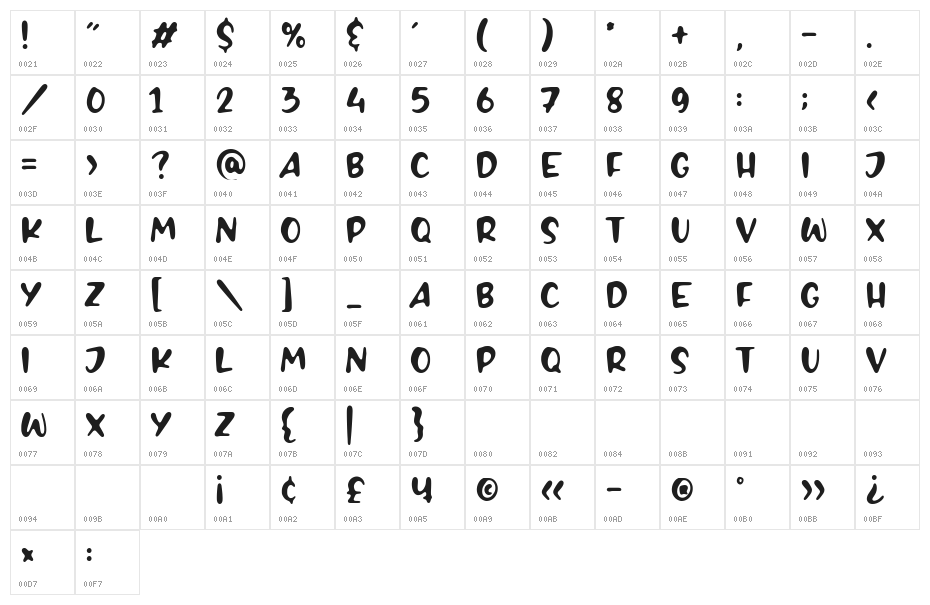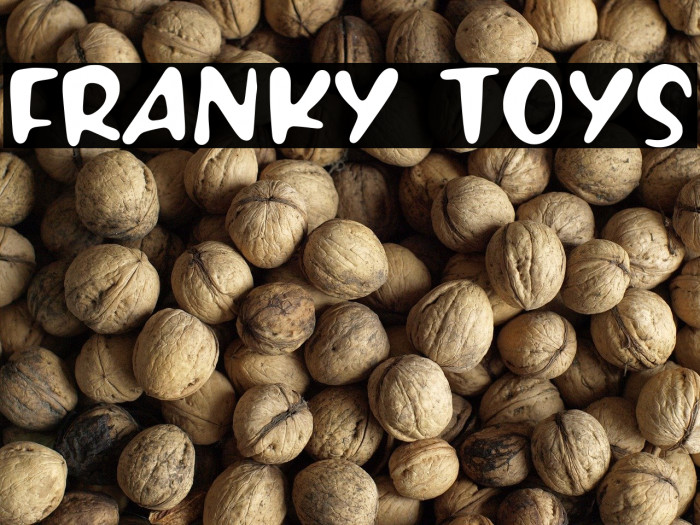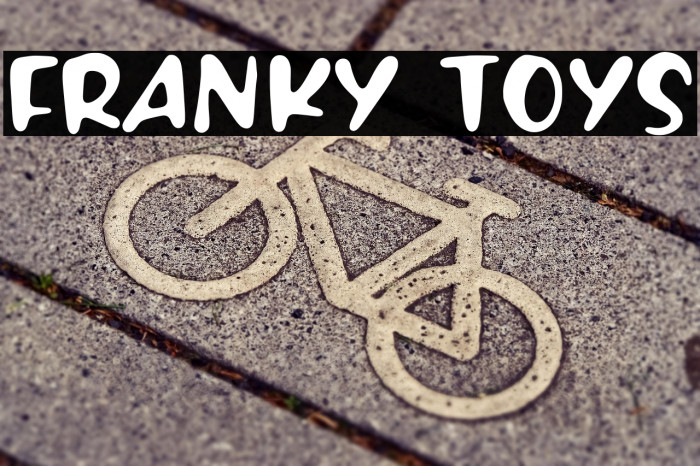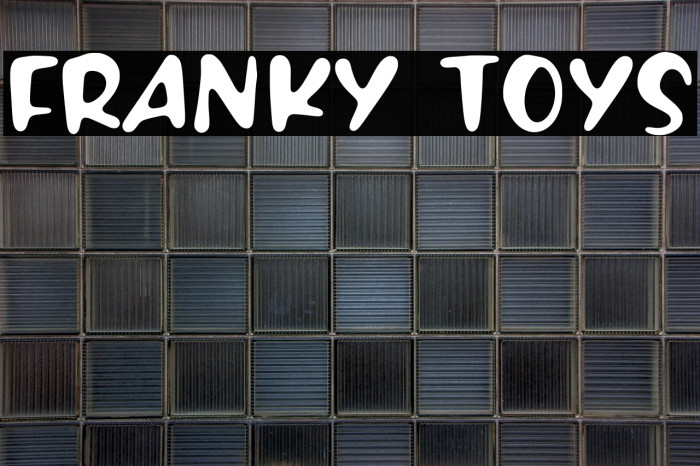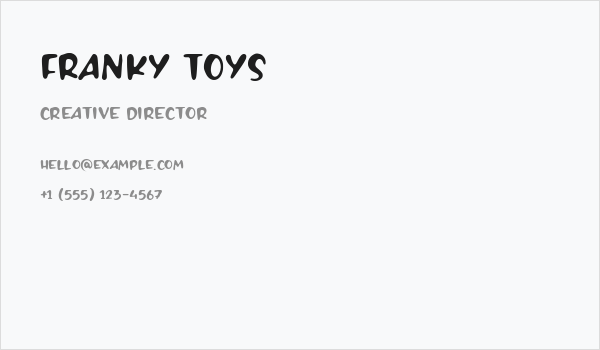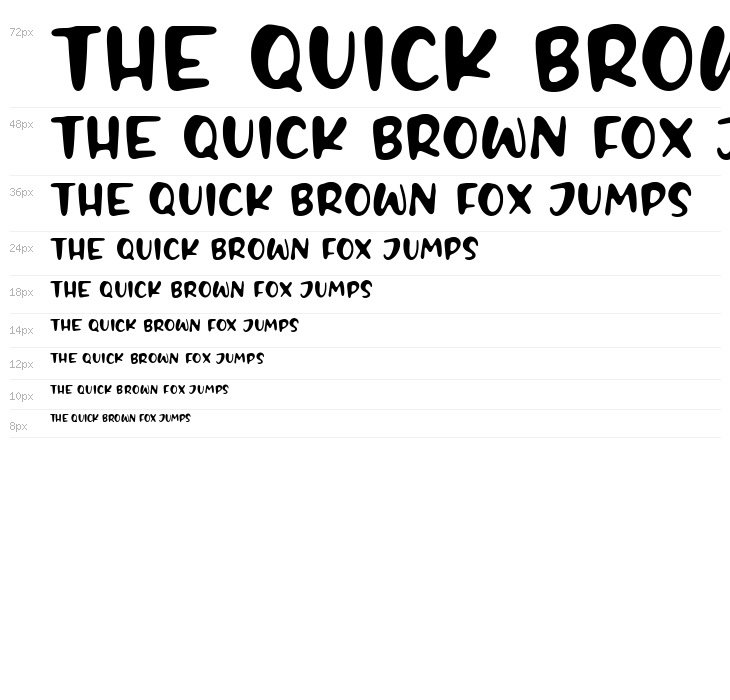
FRANKY TOYS Font
FRANKY TOYS Description
This playful and bold font features rounded, bubbly characters that exude a sense of fun and whimsy. Each letter is crafted with a smooth, flowing style that gives it a hand-drawn appearance, making it perfect for projects that require a touch of creativity and informality. The font maintains a consistent weight throughout, providing a balanced look that is both eye-catching and easy to read. Its unique character shapes and slightly irregular lines add to its charm, making it ideal for children's materials, playful branding, or any design that aims to convey a sense of joy and spontaneity.
| Proposed Projects | Ideal for children's books, playful branding, toy packaging, and creative posters. |